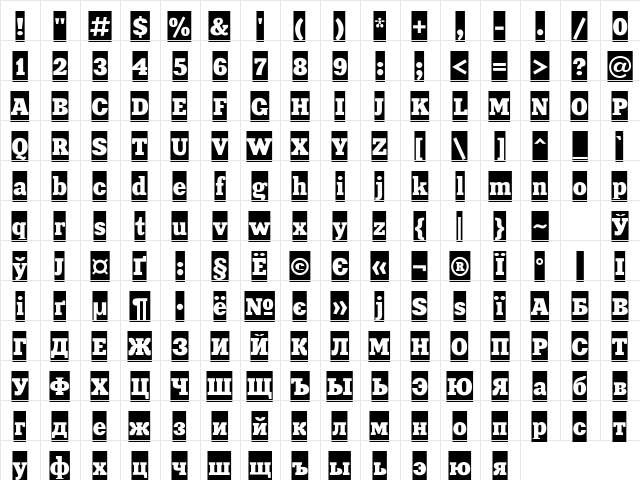
XeniaCameoC Regular Font Preview
XeniaCameoC Regular
XeniaCameoC Regular Font Details
Design Context for XeniaCameoC Typeface
XeniaCameoC is a composed and adaptable typeface that performs quietly and consistently across a wide range of design contexts.
Pro Tip: Use XeniaCameoC in both headline and body roles to test its range before committing to a single application.